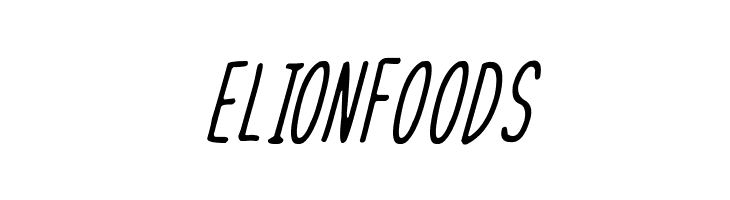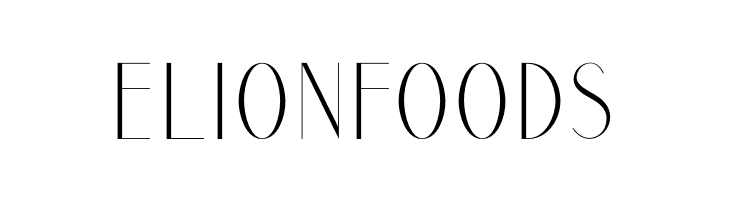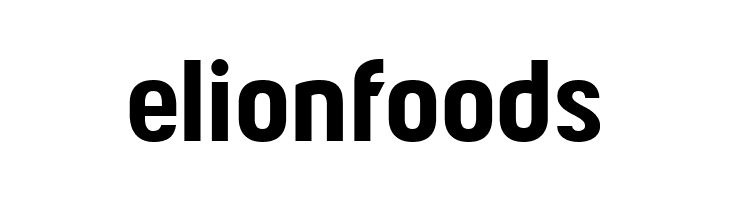
A tall, slender, and italicized font with a dynamic and modern style.
A playful, handwritten font with fluid, slender strokes and a casual style.
A sleek, modern font with high contrast and elegant, slender characters.
A modern, rounded sans-serif font with a clean and approachable style.
A bold, modern, and condensed font with clean lines and geometric structure.
A bold, modern font with strong geometric influences and uniform strokes.
A modern, geometric font with rounded edges and balanced proportions.
A tall, slender font with elegant, narrow letterforms and minimal contrast.